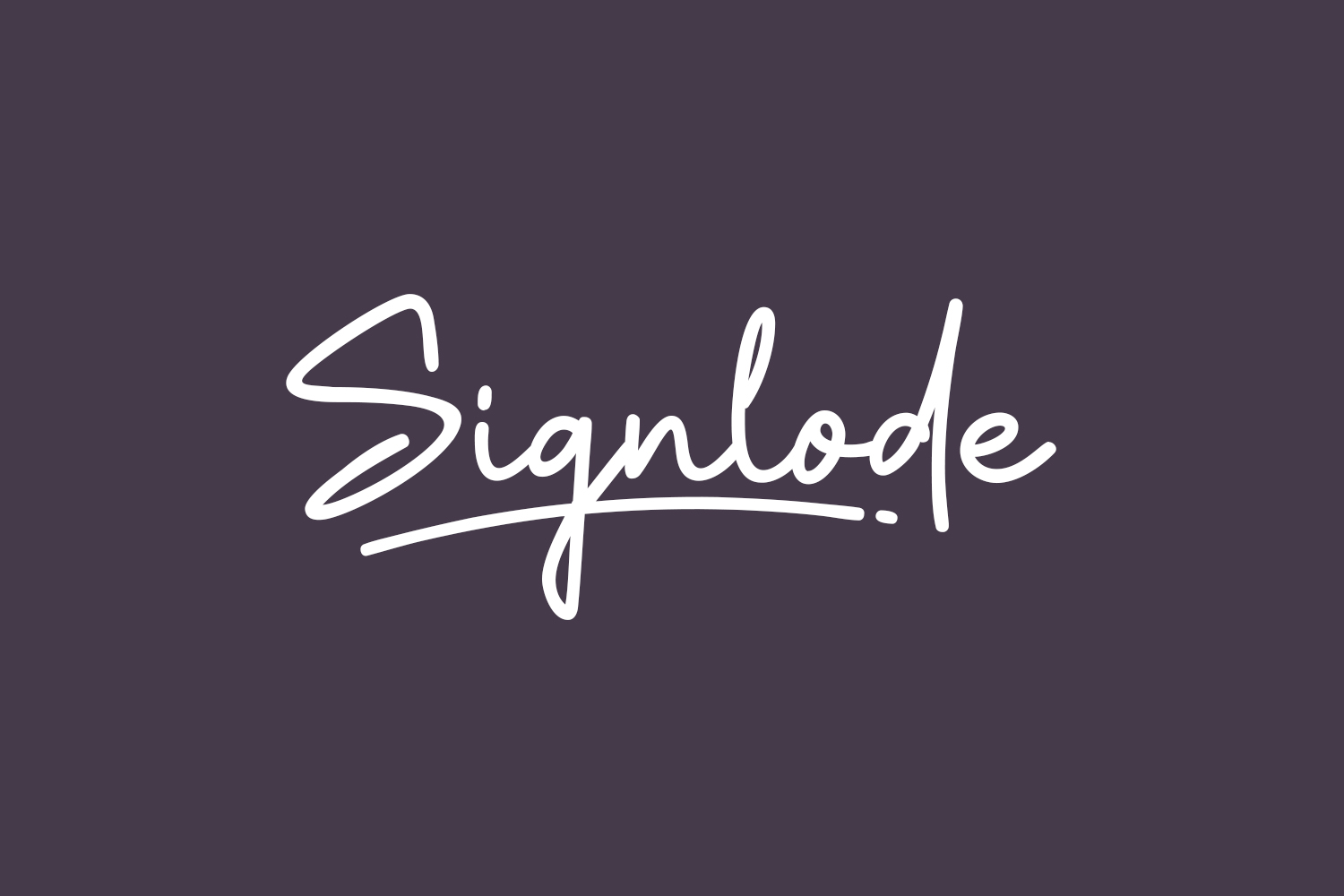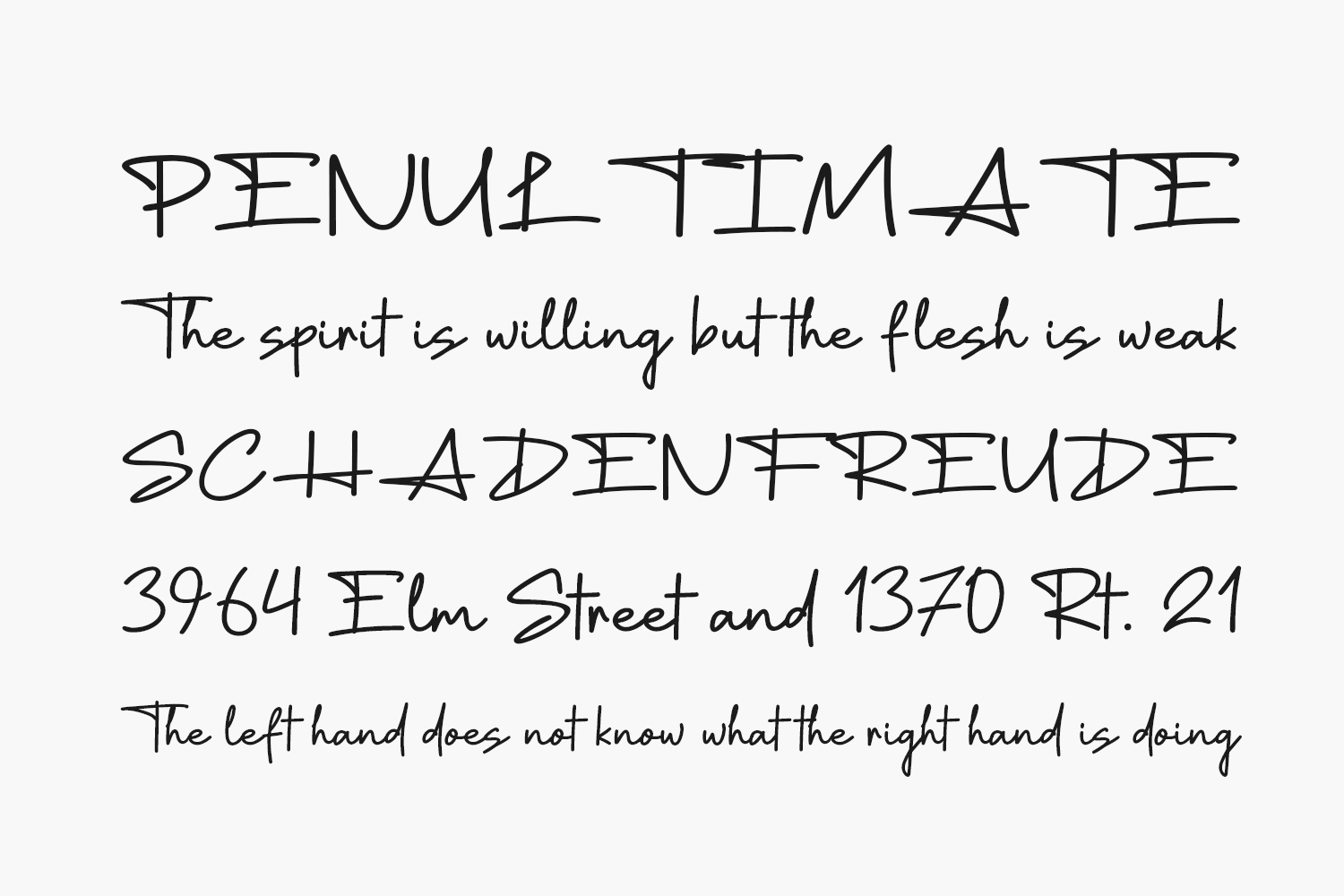
Signlode Free Font is a clean, stylish, modern, and elegant script font perfect for posters, logos, magazines, book covers, banners, and many more! Get this amazing font, and use it to create lovely designs. It can easily be matched to an incredibly large set of projects, so add it to your creative ideas and notice how it makes them stand out. Signlode Free Font is free for personal use only. Please purchase the full version for commercial use.